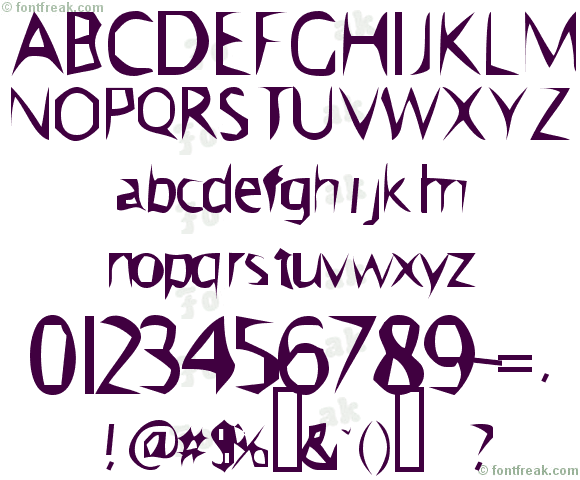
Hangover?
About Handover?
Introducing the Handover? font by Pizzadude, a delightful display typeface that brings a unique flair to any design project. This freeware font is designed with a captivating blend of playful and artistic elements, making it perfect for various creative applications. Handover? falls into the category of decorative fonts, characterized by its whimsical curves and unconventional letterforms that evoke a sense of fun and spontaneity.
Visually, the Handover? font features a medium stroke weight with subtle variations, providing a pleasing balance between boldness and readability. The letters have a relaxed spacing, which contributes to an airy feel, allowing designs to breathe while still making a strong visual impact. Decorative elements are present throughout, with quirky serifs and unexpected flourishes that give the font its distinctive personality.
This font shines in specific use cases, including wedding invitations, where its charming style adds a touch of elegance and whimsy. It also works beautifully on movie posters, capturing attention with its unique character. Restaurant menus can benefit from the Handover? font, providing a friendly and inviting aesthetic that makes the dining experience feel more personal. Additionally, it's an excellent choice for social media graphics, allowing content creators to communicate their messages in a visually engaging way.